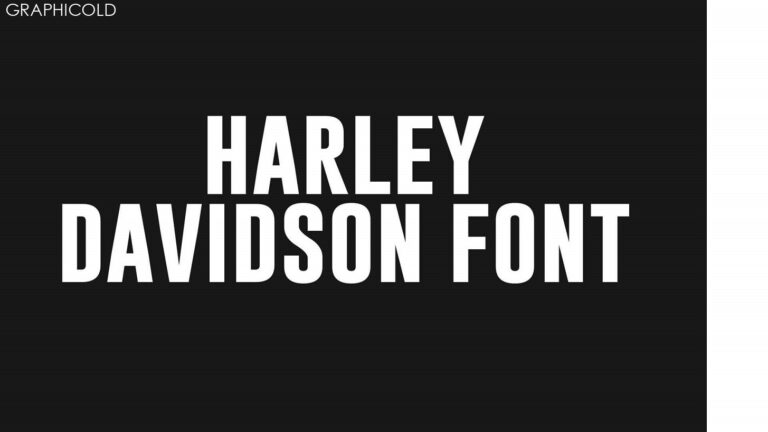
The Fascinating Typography Of Harley Davidson: Exploring The Iconic Font
Harley-Davidson Font: Exuding Character and Style
Harley-Davidson, one of the most iconic motorcycle manufacturers in the world, is not just known for its powerful bikes and distinctive logo. Another element that sets Harley-Davidson apart is its unique and recognizable font, which has become synonymous with the brand’s rebellious and adventurous spirit.
The Harley-Davidson font, known as Block Gothic RR Bold Condensed, is a bold and condensed typeface that reflects the brand’s rugged and strong image. The font features thick, heavy strokes and sharp angles, giving it a sense of power and solidity. This font is widely used in various Harley-Davidson branding materials, including advertisements, signage, and merchandise.
The choice of font for a brand is crucial as it helps in communicating its personality and values. In the case of Harley-Davidson, the font perfectly captures the essence of the brand. It conveys a sense of freedom, rebellion, and masculinity, which are all core attributes associated with the motorcycle culture.
The Harley-Davidson font is also versatile and adaptable, making it suitable for a range of applications. Whether it is used for headlines, slogans, or body text, the font maintains its impact and readability. It has a strong presence and can easily catch the attention of viewers, making it an effective tool for brand recognition.
The font’s bold and condensed design also allows for more efficient use of space, making it ideal for designs with limited room. This is especially important for motorcycle graphics, where every inch of space counts. The font’s compact nature ensures that the brand name and other details can be displayed prominently, even on small surfaces.
Over the years, the Harley-Davidson font has become an integral part of the brand’s identity. It has become instantly recognizable and is often associated with the spirit of adventure and the open road. The font has become a symbol of the motorcycle culture and has gained a dedicated following among enthusiasts and fans worldwide.
In conclusion, the Harley-Davidson font is more than just a typeface. It is a visual representation of the brand’s character and values. Its bold and condensed design exudes power and strength, making it a perfect fit for a brand like Harley-Davidson. The font’s versatility and recognizability have contributed to its widespread use and popularity among both fans and consumers.